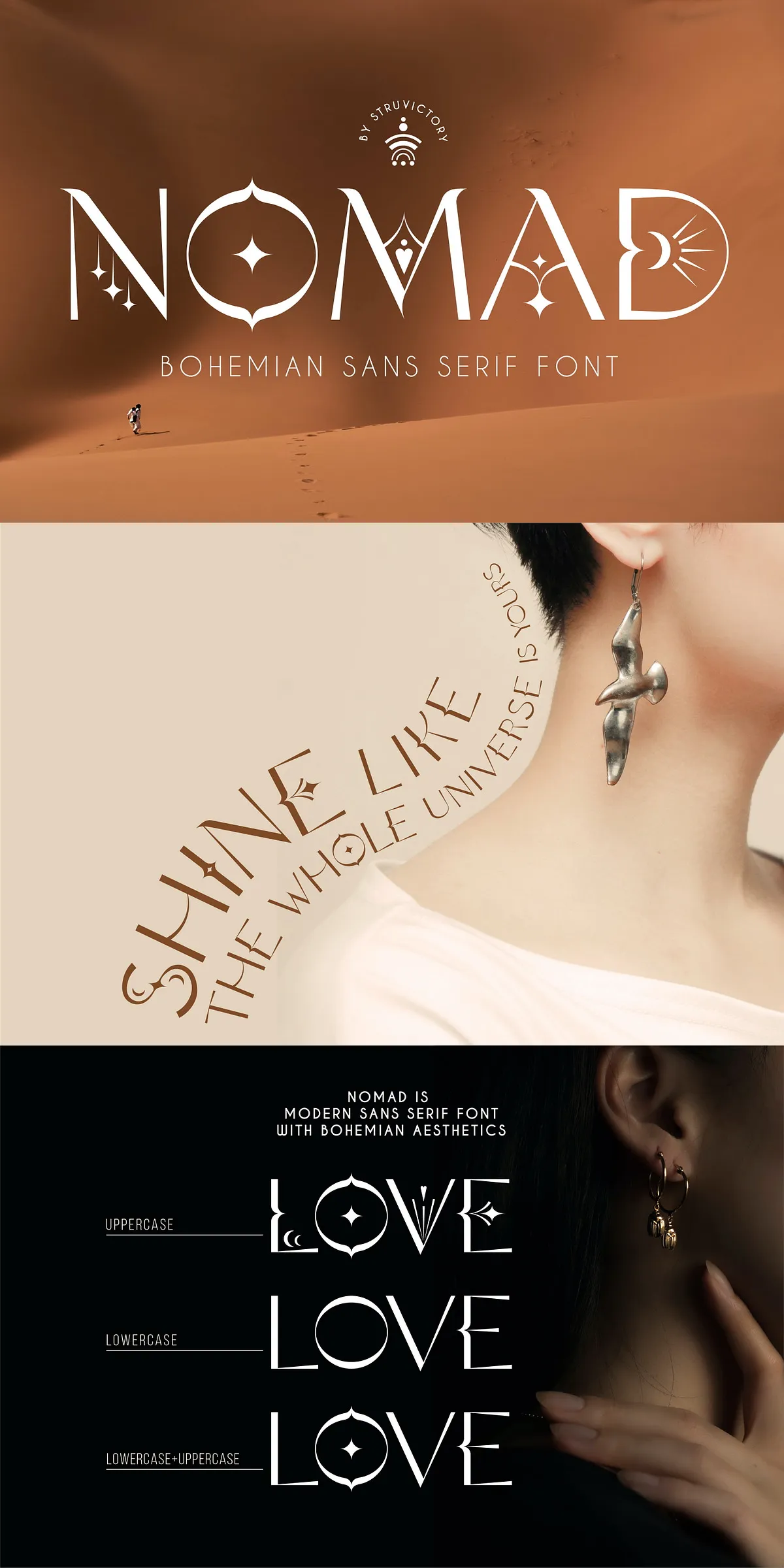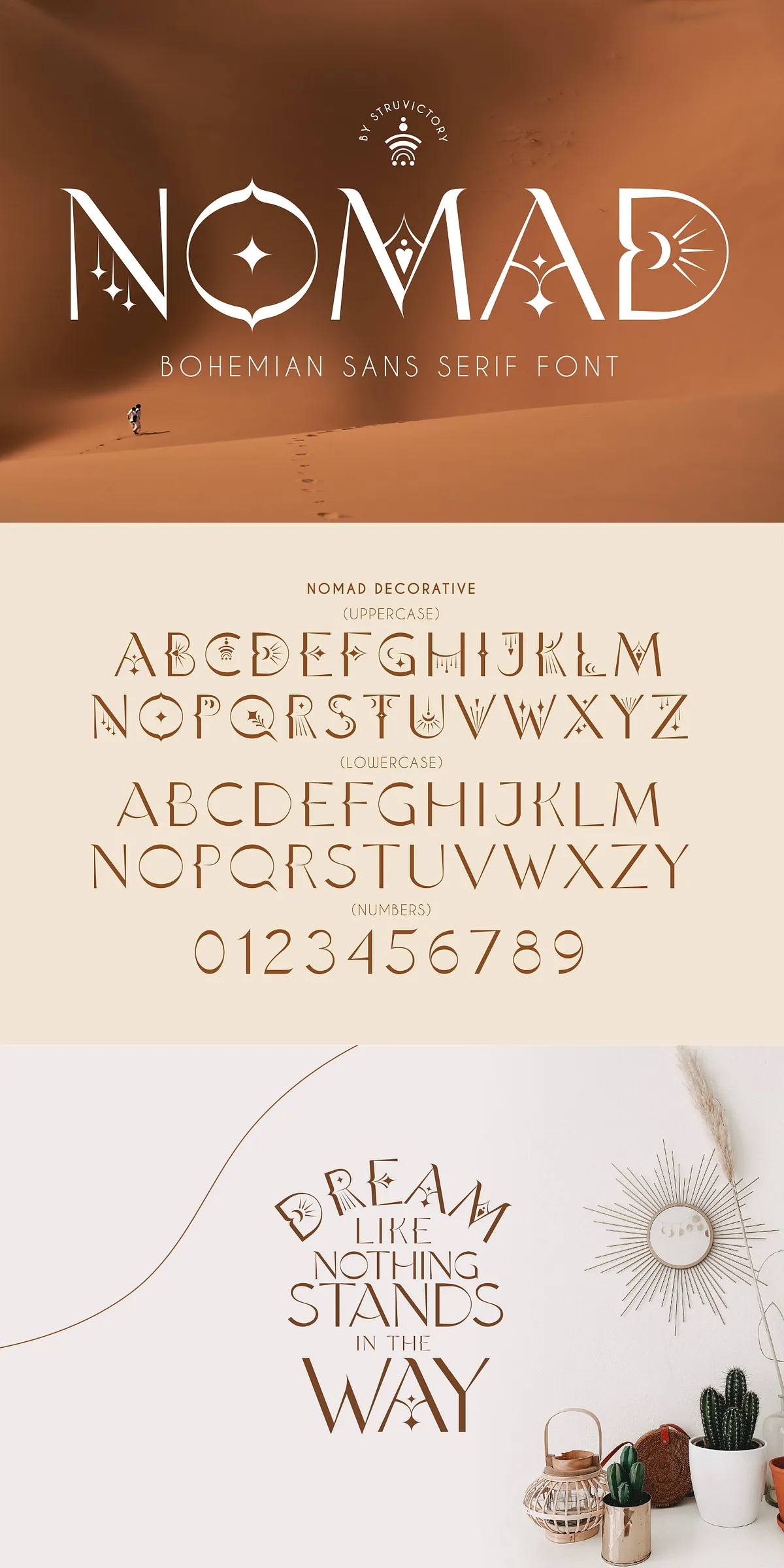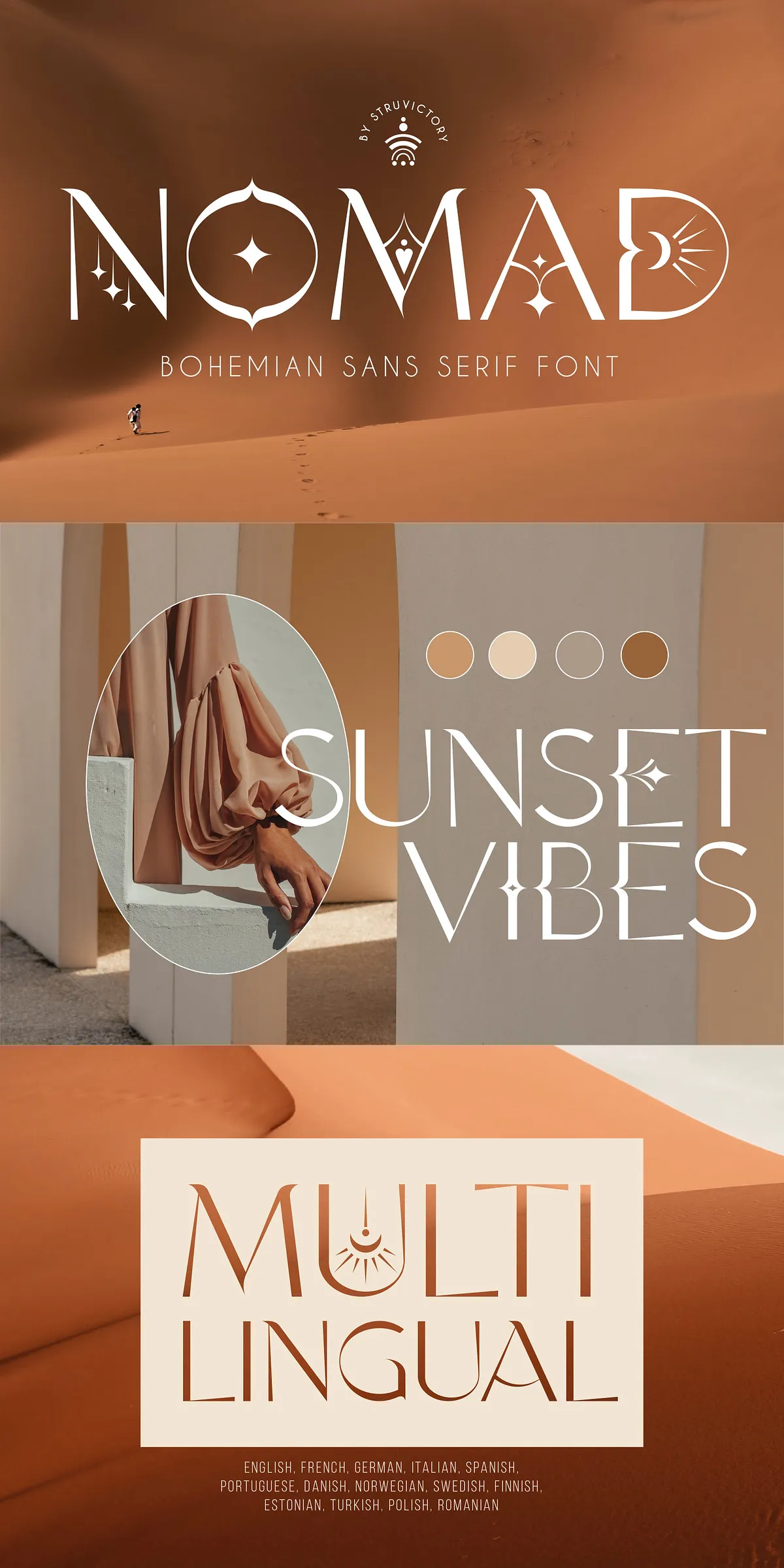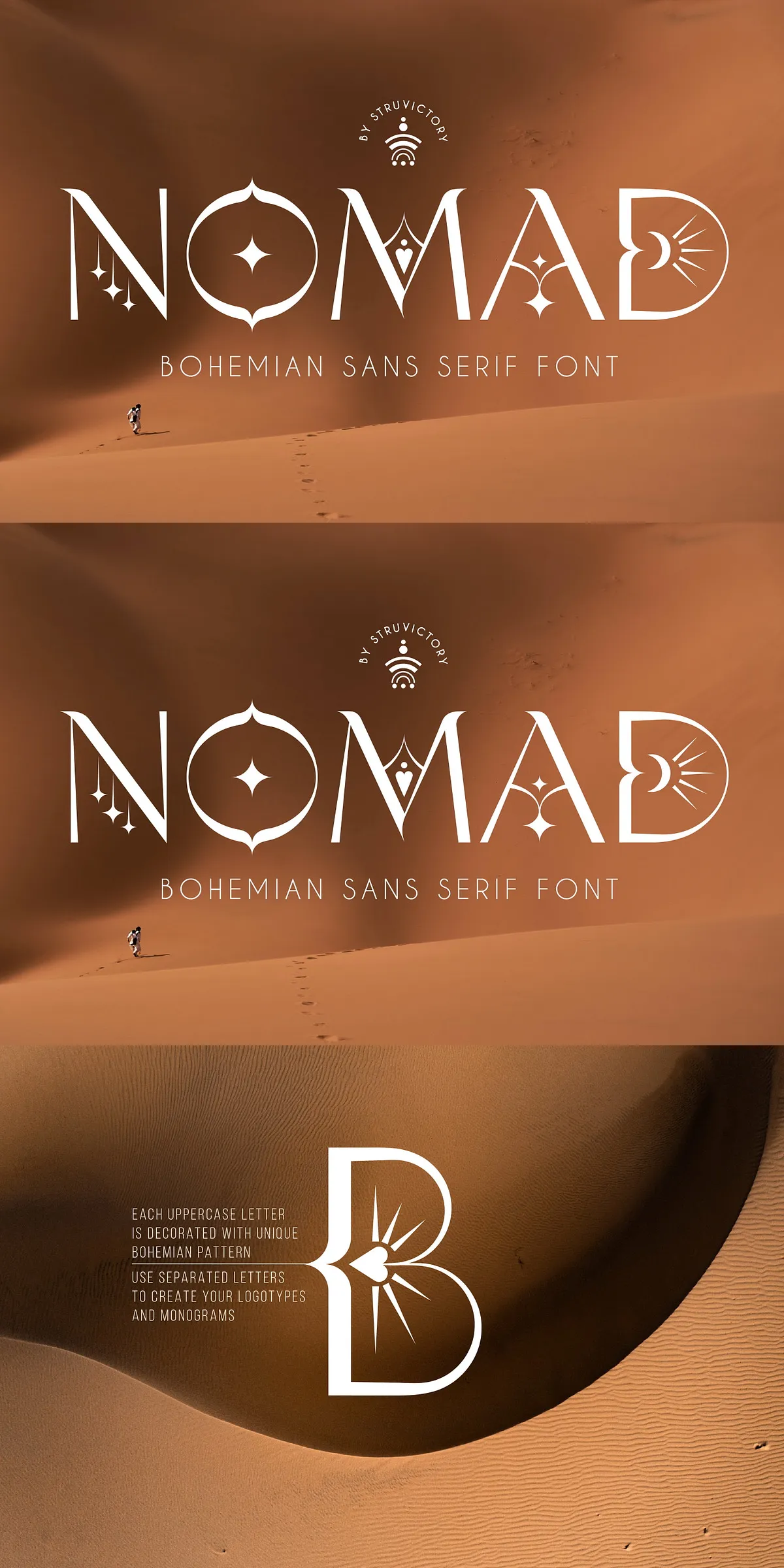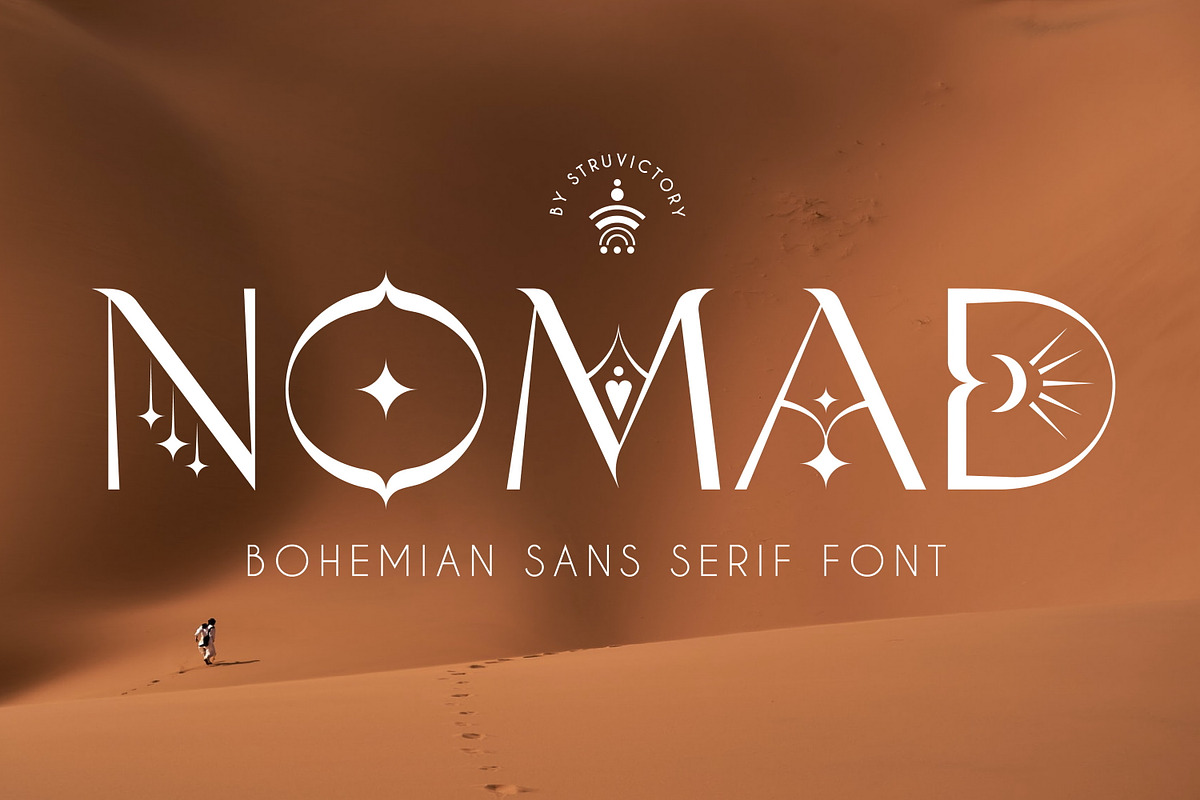
NOMAD is a carefully crafted modern sans serif that embraces bohemian motives and celestial ornamentation. Designed in classic proportions, NOMAD balances restrained sans-serif lowercase forms with ornate, decorative uppercase characters to create a compelling contrast between clarity and personality. This font actively supports projects that want to convey mysticism, spirituality, astrology, witchcraft, and other esoteric themes without sacrificing legibility or production readiness. Whether you are designing packaging for ritual goods, branding a metaphysical studio, or composing editorial spreads about astrology, NOMAD gives your words a distinctive, evocative voice.
Distinctive Visual Features And Decorative Uppercase Details
NOMAD’s lowercase alphabet stays true to modern sans conventions: even stroke weight, open counters, and balanced proportions that read well in paragraphs and short blocks of text. The uppercase set flips the tone: each capital carries decorative celestial motifs—stars, moons, and fine ornamental strokes—that transform simple headlines into visual statements. These decorative capitals function as headline display elements, logotype ingredients, or ornamental initials for printed spreads. The pair of restrained lowercase and flourish-rich uppercase gives designers flexibility to create both subtle and dramatic typographic hierarchies.
Design Benefits And Practical Visual Characteristics Explained
- Clear, classic sans-serif lowercase for readable body copy and supporting text.
- Ornate, celestial uppercase glyphs for headlines, logos, and decorative initials.
- Balanced proportions suitable for both digital and print environments.
- Deliberate spacing and open counters that preserve legibility at smaller sizes.
- Bohemian decorative accents that convey mysticism without appearing cluttered.
Recommended Uses For Spiritual And Esoteric Projects
Use NOMAD to quickly establish an otherworldly yet professional aesthetic. Apply the decorative uppercase to logotypes, package fronts, event posters, and social media hero images to anchor your design in a mystical visual language. Use the lowercase family for supporting text in catalogs, websites, or product descriptions to maintain readability. NOMAD performs particularly well in the following applications:
- Brand identities for tarot readers, astrologers, and spiritual shops.
- Packaging and labels for candles, incense, herbal blends, and ritual kits.
- Editorial layouts discussing astrology, folklore, or mystical subjects.
- Event materials for workshops, rituals, and themed gatherings.
- Web headers, social posts, and hero banners where tone and atmosphere matter.
How To Combine NOMAD With Complementary Typefaces
Pair NOMAD’s decorative uppercase with neutral humanist or geometric sans-serifs for contrast and balance. For body copy, select a clean serif or a highly legible sans to prevent visual competition with uppercase ornamentation. When designing logos, treat the decorative capitals as emblematic elements and keep surrounding text minimal. Use consistent color palettes and measured letterspacing to ensure the ornamental uppercase reads well across small and large formats.